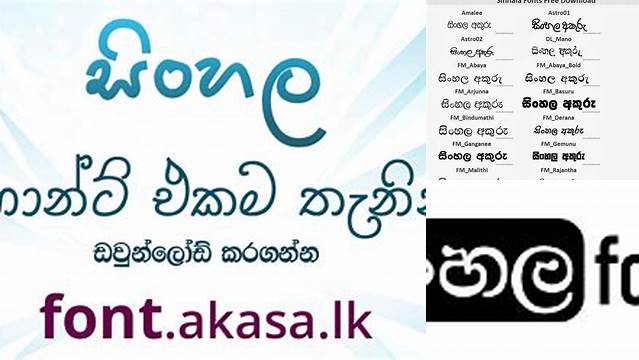
Sinhala Fonts: Free Downloads And Best Uses
Are you looking for the best Sinhala fonts to enhance your design projects? If you're diving into the world of Sinhala typography, you're in for a treat! Choosing the right font can significantly impact the readability and visual appeal of your content. Whether you're designing websites, creating print materials, or working on digital media, the perfect Sinhala font can bring your vision to life. In this guide, we'll explore some fantastic Sinhala fonts that are available for free download, ensuring you have access to high-quality typefaces without breaking the bank.
Why Choosing the Right Sinhala Font Matters
When it comes to Sinhala typography, the importance of selecting the correct font cannot be overstated. Choosing the right Sinhala font is crucial for several reasons, each contributing to the overall impact and effectiveness of your message. Think of it this way, guys: the font is the voice of your text. You want it to speak clearly and resonate with your audience!
First and foremost, readability is paramount. A well-designed Sinhala font ensures that your text is easy to read, which is essential for keeping your audience engaged. Imagine reading a beautifully written article in a font that's so ornate it's almost illegible. Frustrating, right? The same applies to Sinhala script. Clear, well-spaced characters allow readers to effortlessly follow your content, whether it's a blog post, a poster, or a digital advertisement. Fonts like FM Abhaya and Iskoola Pota are excellent examples of typefaces that prioritize readability, making them ideal choices for body text and lengthy content.
Secondly, the visual appeal of your text plays a significant role in capturing and maintaining attention. A font that complements your design's aesthetic can elevate the entire project, making it more visually engaging and professional. Different fonts evoke different emotions and styles. A modern, sans-serif font might be perfect for a tech company's website, conveying a sense of innovation and simplicity. On the other hand, a traditional, serif font might be more suitable for a cultural publication, adding a touch of elegance and heritage. Fonts like FM Malithi and FM Sugandhika offer distinct visual characteristics, allowing you to tailor your design to the specific mood and message you want to convey.
Furthermore, the cultural context of Sinhala typography adds another layer of importance to font selection. Sinhala script has a rich history and unique character, and the font you choose can either honor or undermine this heritage. Using a font that is poorly designed or doesn't respect the nuances of the script can detract from the authenticity of your message. It's like wearing the wrong outfit to a special occasion—it just doesn't fit. Fonts like LKLUG and Kaputa Sinhala are designed with cultural sensitivity in mind, ensuring that your text not only looks good but also respects the Sinhala script's tradition and beauty.
In addition to these factors, accessibility is a critical consideration. When designing for a diverse audience, it's essential to choose fonts that are accessible to everyone, including those with visual impairments. High-contrast fonts with clear letterforms can significantly improve readability for individuals with low vision. Ensuring that your chosen font supports a wide range of characters and glyphs is also important, especially when dealing with complex Sinhala text. By prioritizing accessibility, you can create inclusive designs that reach a broader audience.
Finally, consistency in font usage is key to maintaining a professional and cohesive brand identity. Using the same font across all your materials—from your website to your business cards—helps to create a unified visual experience. This consistency builds brand recognition and reinforces your message, making it easier for your audience to connect with your content. Think of major brands like Coca-Cola or Google; their consistent use of specific fonts is a significant part of their brand identity. By establishing a font palette and sticking to it, you can create a strong and memorable brand presence.
In summary, choosing the right Sinhala font involves balancing readability, visual appeal, cultural context, accessibility, and consistency. By carefully considering these factors, you can select a font that not only looks great but also effectively communicates your message and resonates with your audience. So, take your time, explore the options, and find the font that perfectly embodies your vision. Your typography choices can truly make or break your design, so make them count!
Top Free Sinhala Fonts You Should Know
Now, let's dive into some top free Sinhala fonts that you should definitely know about. These fonts are not only free to download but also offer a great blend of readability, style, and cultural authenticity. Whether you're working on a personal project or a professional design, these fonts will help you create stunning Sinhala content. It's like having a treasure chest of typefaces at your fingertips, ready to bring your ideas to life!
First up, we have FM Abhaya. This font is a true workhorse, known for its exceptional readability and clean design. FM Abhaya is a serif font, which means it has small decorative strokes at the ends of the letters. These serifs help guide the reader's eye along the text, making it easier to read long passages. Guys, if you're looking for a font that's perfect for body text, articles, or books, FM Abhaya is an excellent choice. Its classic and elegant appearance makes it suitable for a wide range of applications, from print to digital media. The balanced letterforms and consistent spacing ensure that your text will look polished and professional.
Next on our list is Iskoola Pota. This font stands out for its unique and slightly whimsical design. Iskoola Pota is a sans-serif font, meaning it doesn't have the serifs found in fonts like FM Abhaya. This gives it a more modern and clean look, making it ideal for headlines, titles, and shorter text blocks. Iskoola Pota has a friendly and approachable feel, making it a great choice for projects that need a touch of personality. Think about using it for children's books, educational materials, or creative marketing campaigns. Its distinctive character shapes make it instantly recognizable and memorable.
In conclusion, mastering Sinhala typography is an exciting journey that opens up a world of creative possibilities. By understanding the importance of choosing the right font, exploring the top free Sinhala fonts available, knowing where to download them, and implementing tips for effective usage, you can elevate your designs and communicate your messages with clarity and style. Whether you're a seasoned designer or just starting out, the world of Sinhala typography has something for everyone. So go ahead, dive in, and let your creativity flourish! Guys, the perfect font is out there waiting to be discovered, ready to transform your projects into typographic masterpieces!